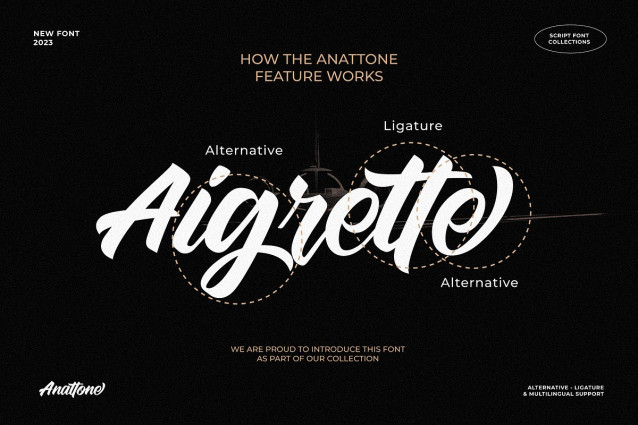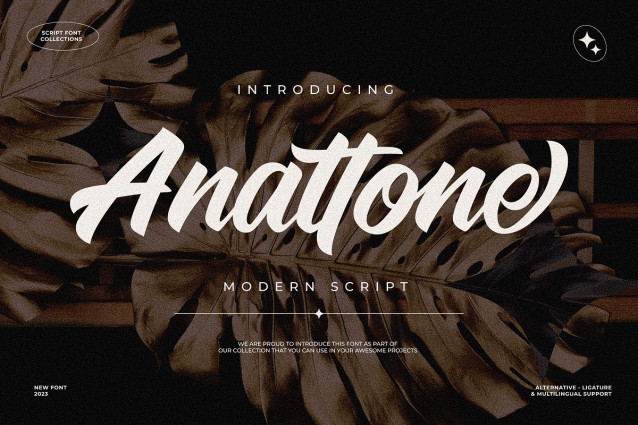
Anattone Script Font
Anattone Script Font A captivating and versatile script font designed to add a touch of elegance and modernity to any project. Whether you’re designing for the fashion industry, food industry, or various celebratory occasions like weddings, birthdays, or engagements, this font is your perfect companion. With its stylish and contemporary script style, Anattone Modern Script Font effortlessly captures attention and elevates your designs to new heights.